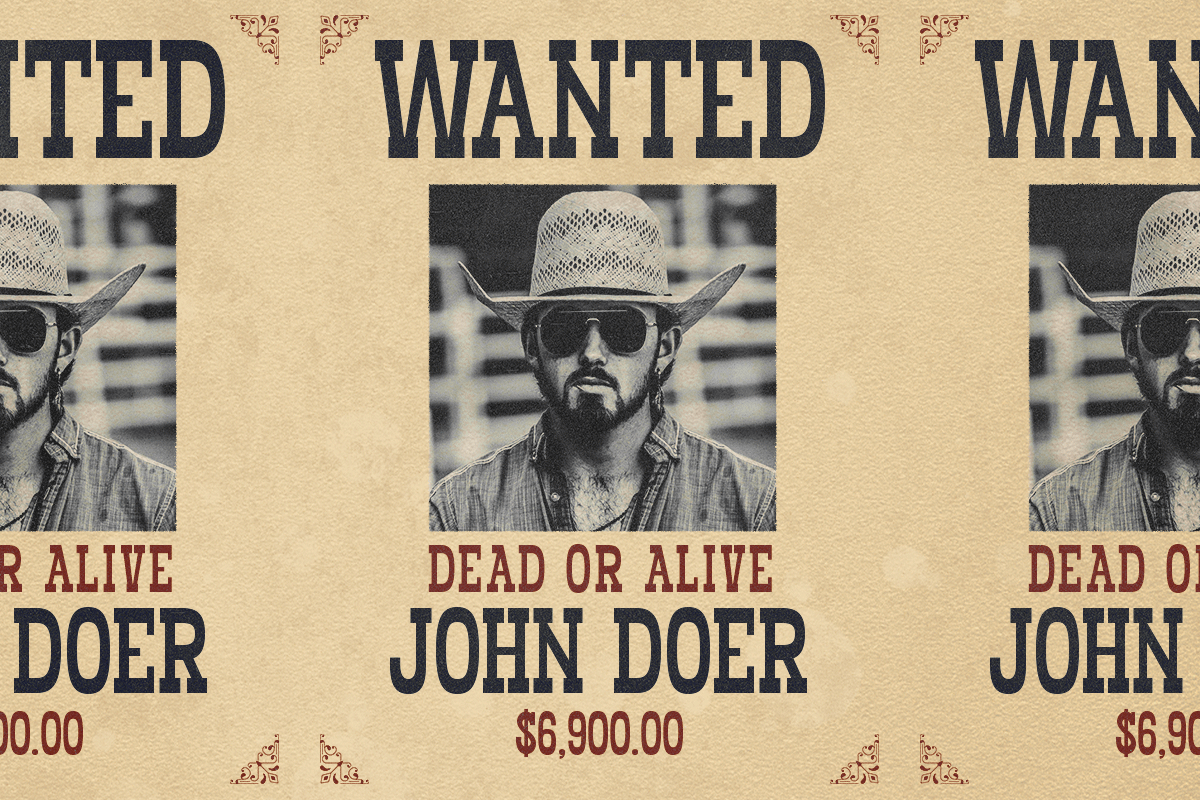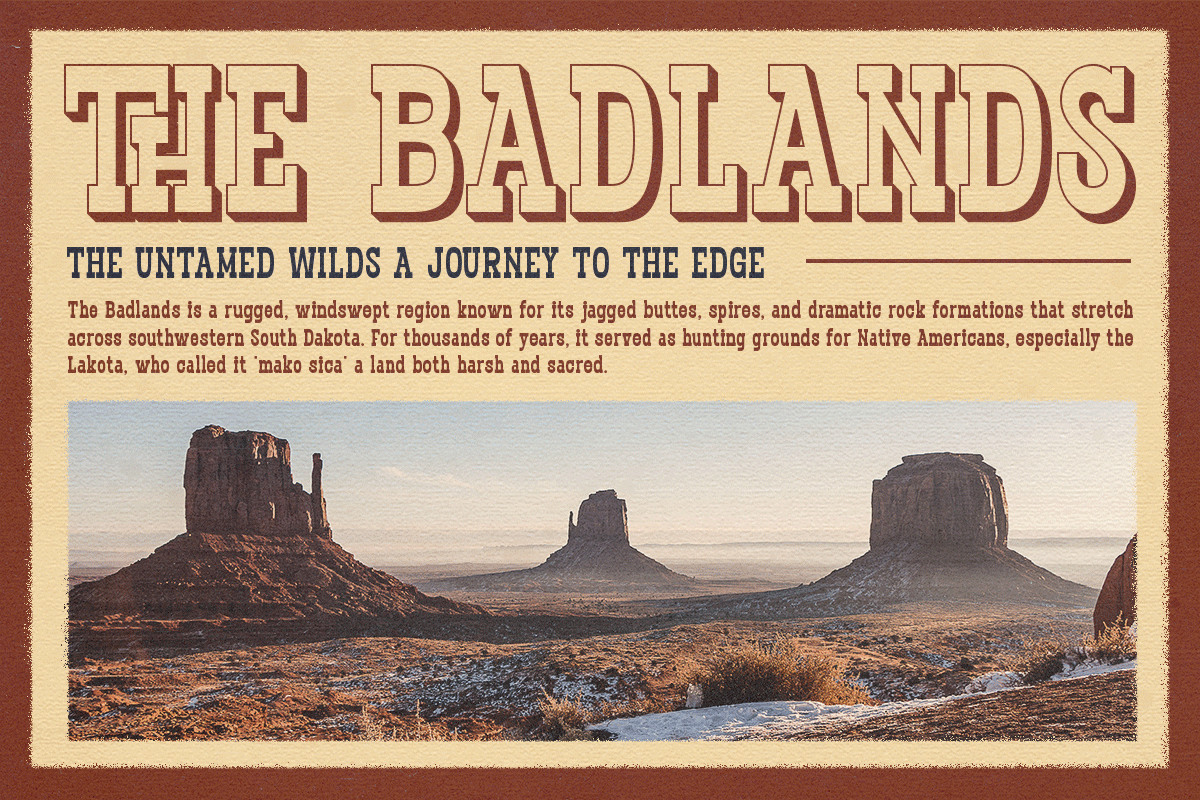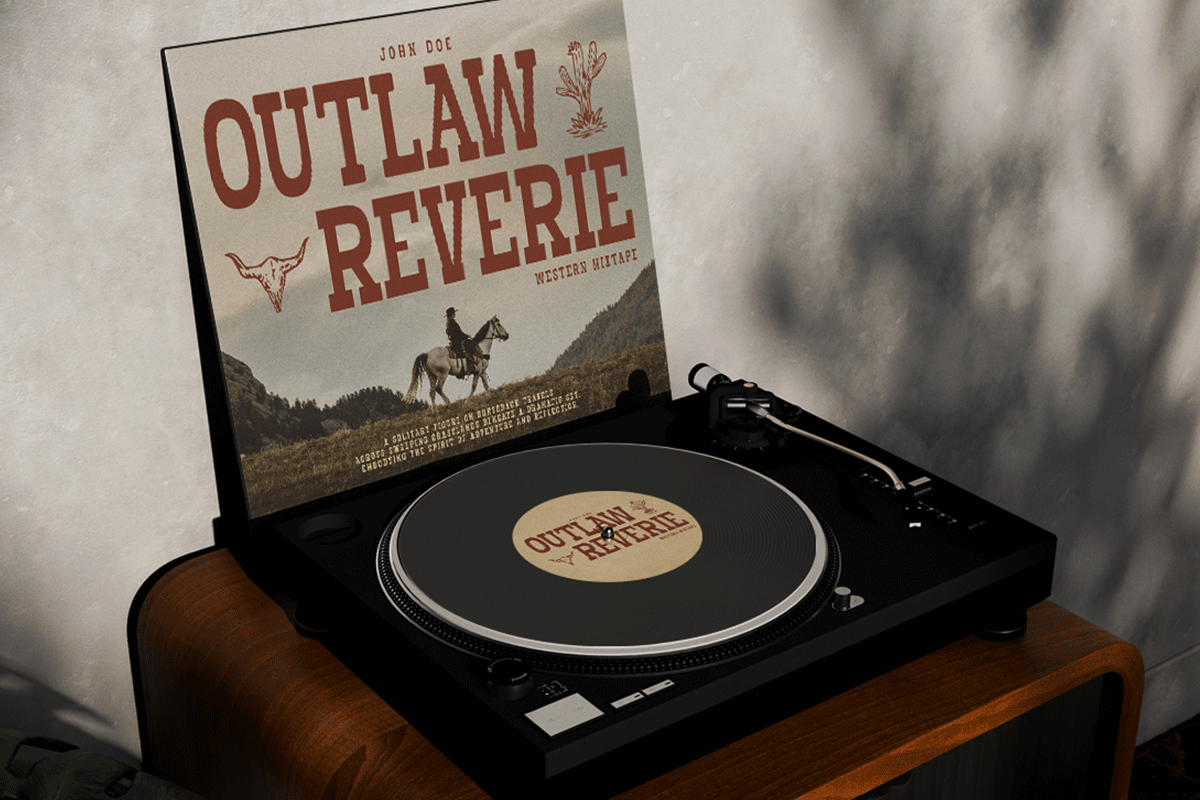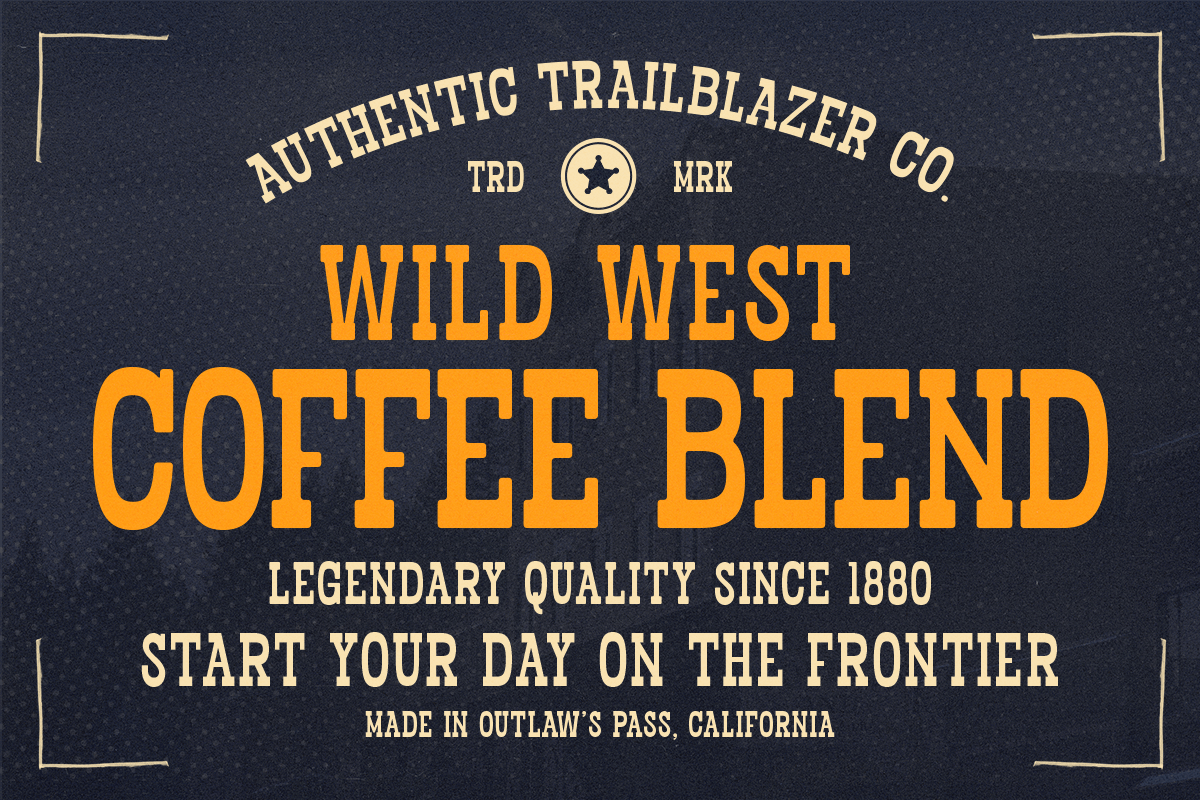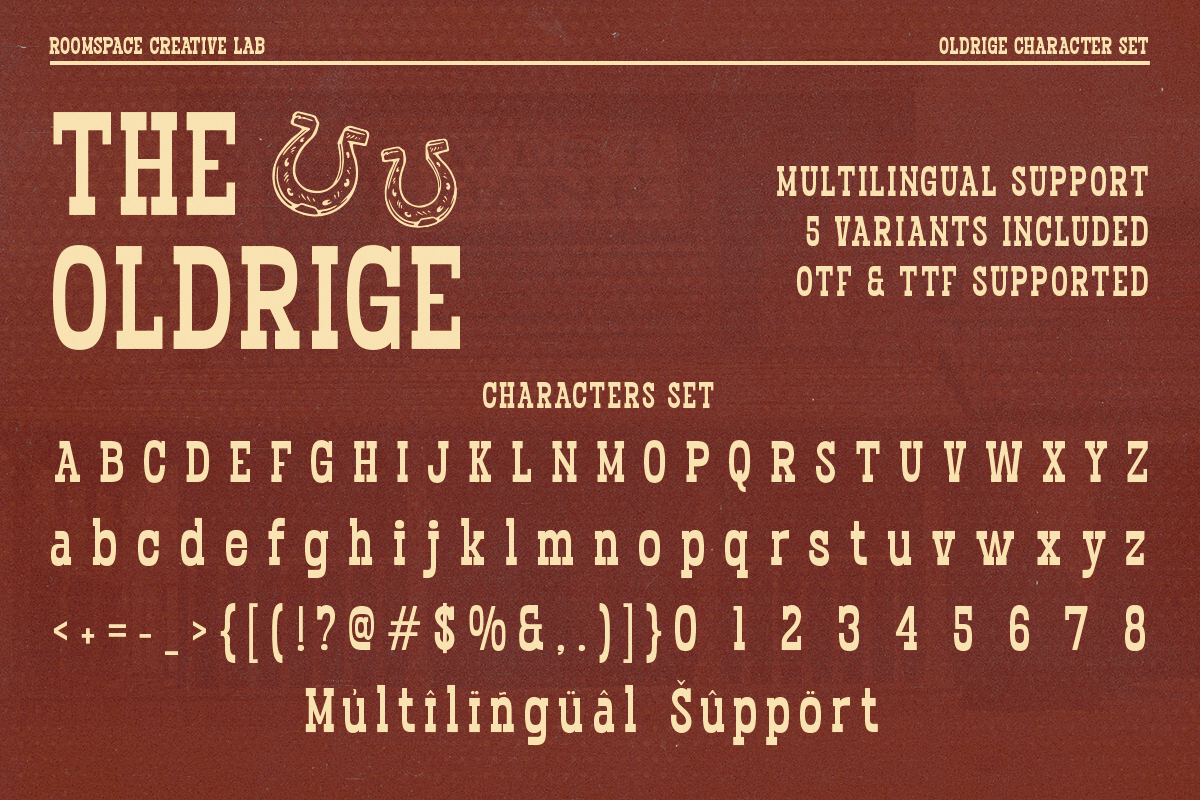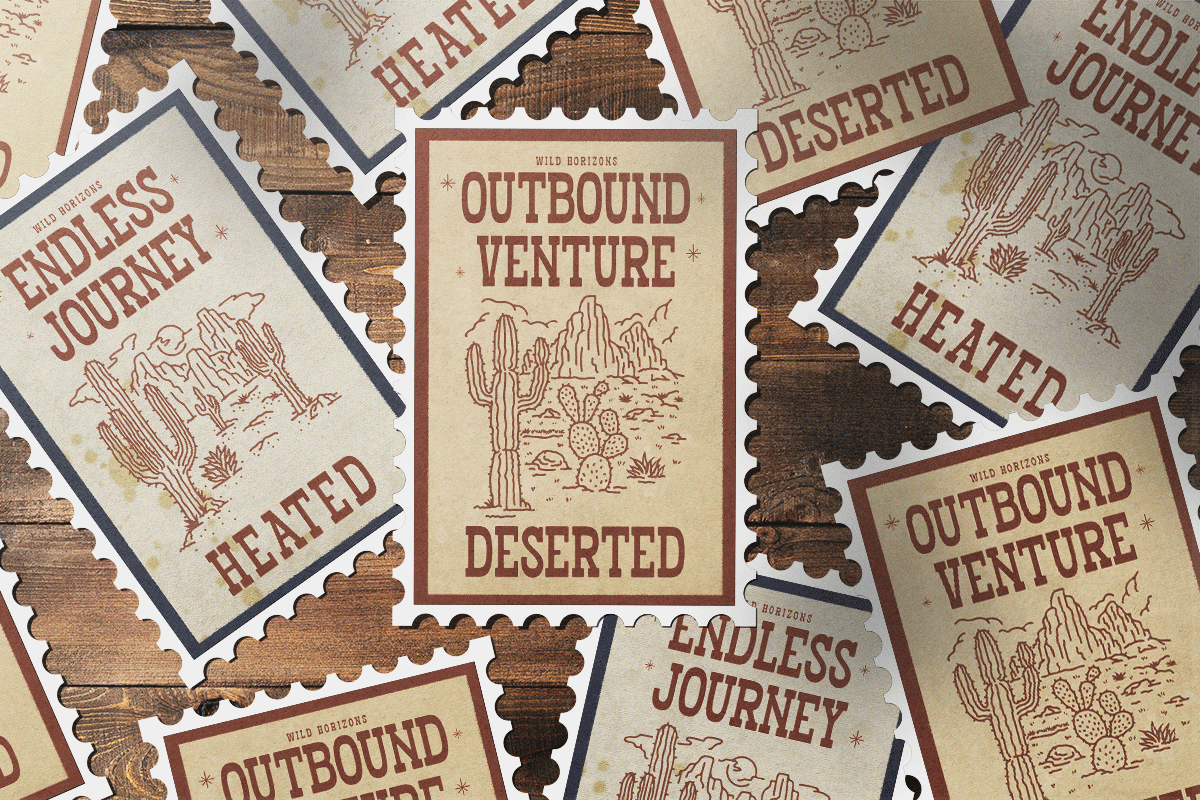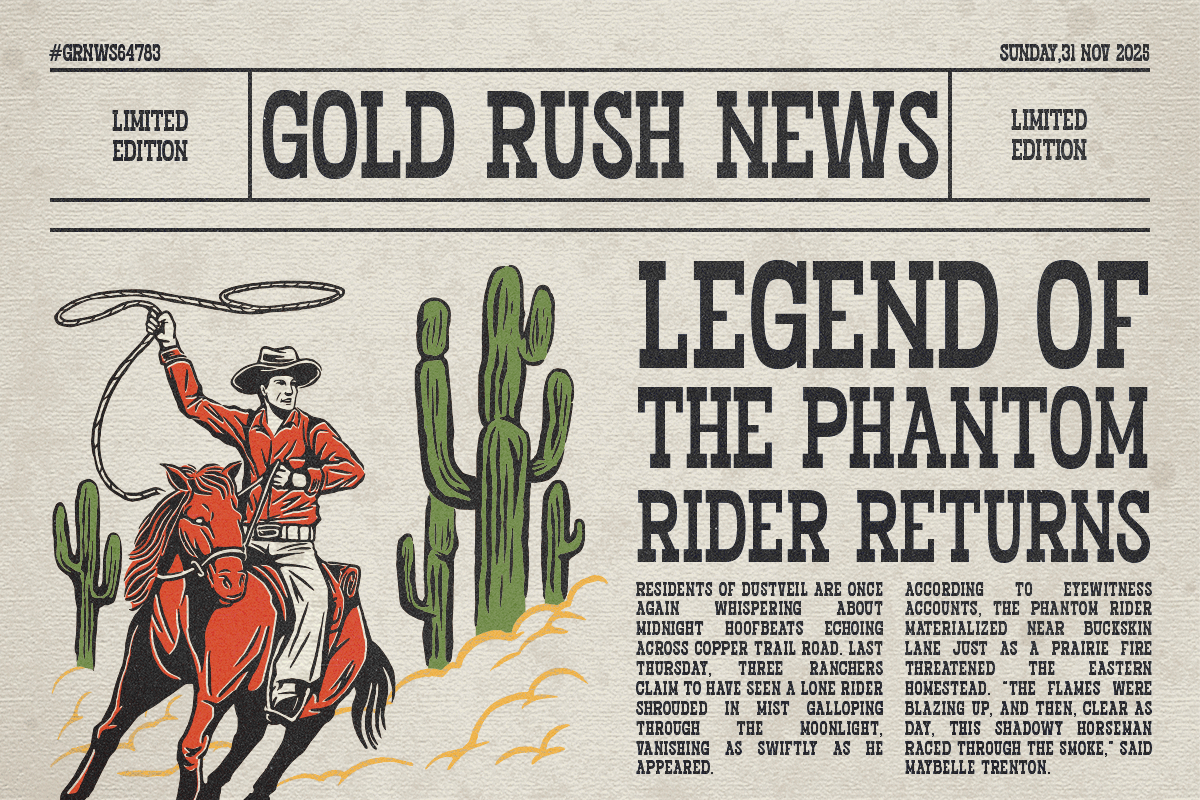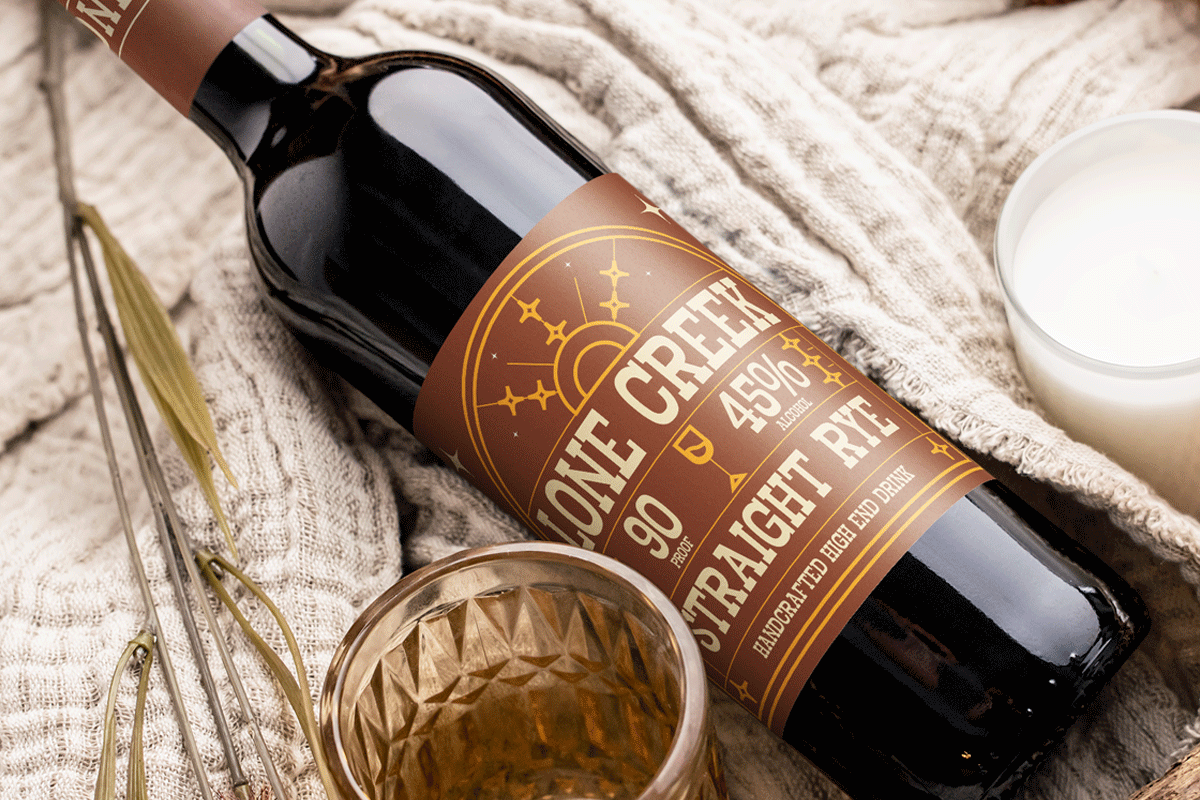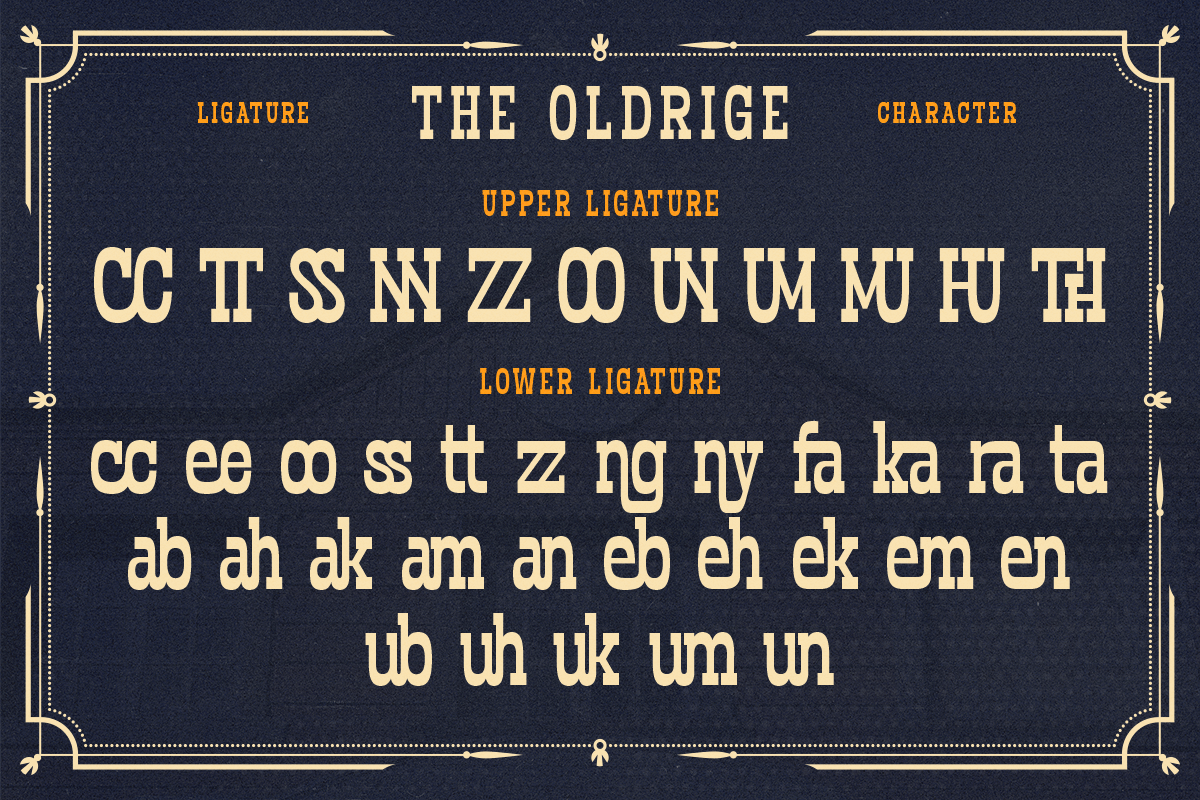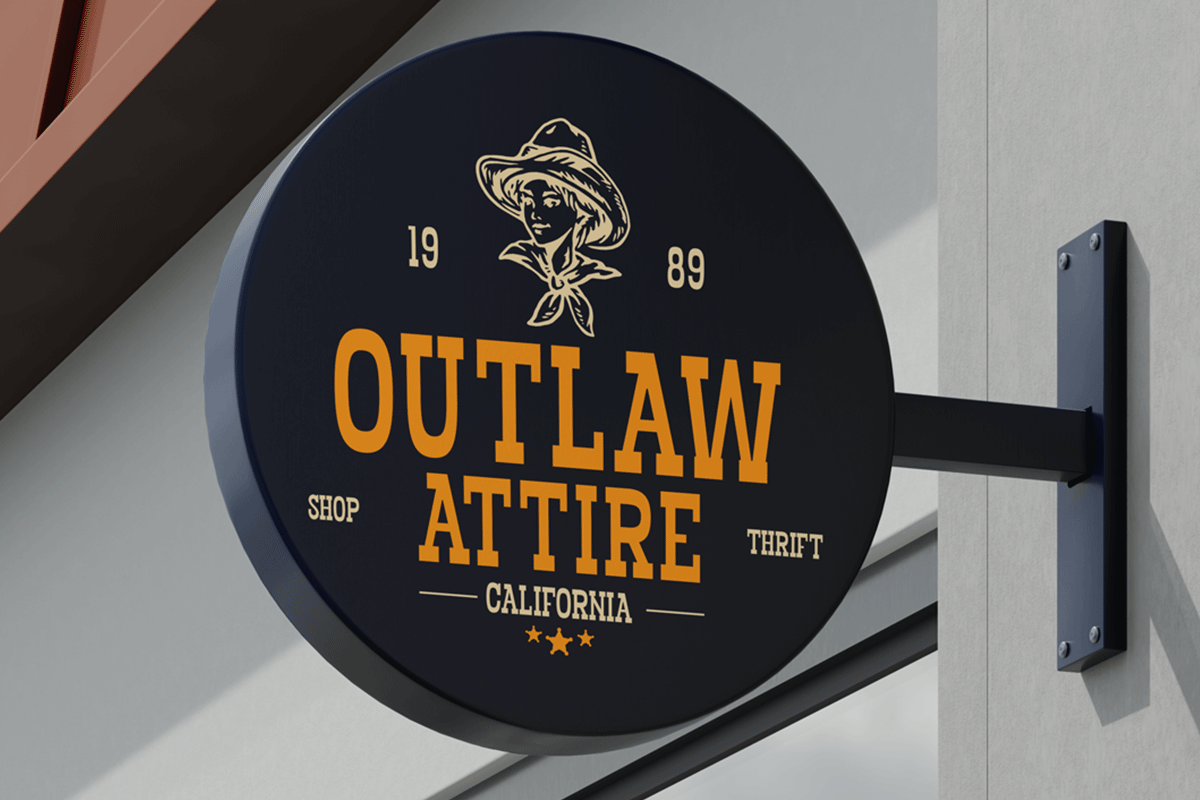
Oldridge – A Bold Western Vintage
Bring the West to life with rugged typography crafted for standout branding.
The design features bold slab-serif lettering in a warm cream tone set against a textured reddish-brown background, capturing the rugged feel of classic frontier typography. Decorative elements such as hand-drawn stars, steer skull illustrations, and subtle grain textures enhance the authentic Old West aesthetic. The tagline “Bring the West to Life” reinforces the font’s purpose for Western branding, retro packaging, rustic posters, and heritage-inspired design projects. Overall, the visual communicates a strong frontier personality and vintage Americana charm.
- Authentic slab shapes
- Hand-crafted vintage details